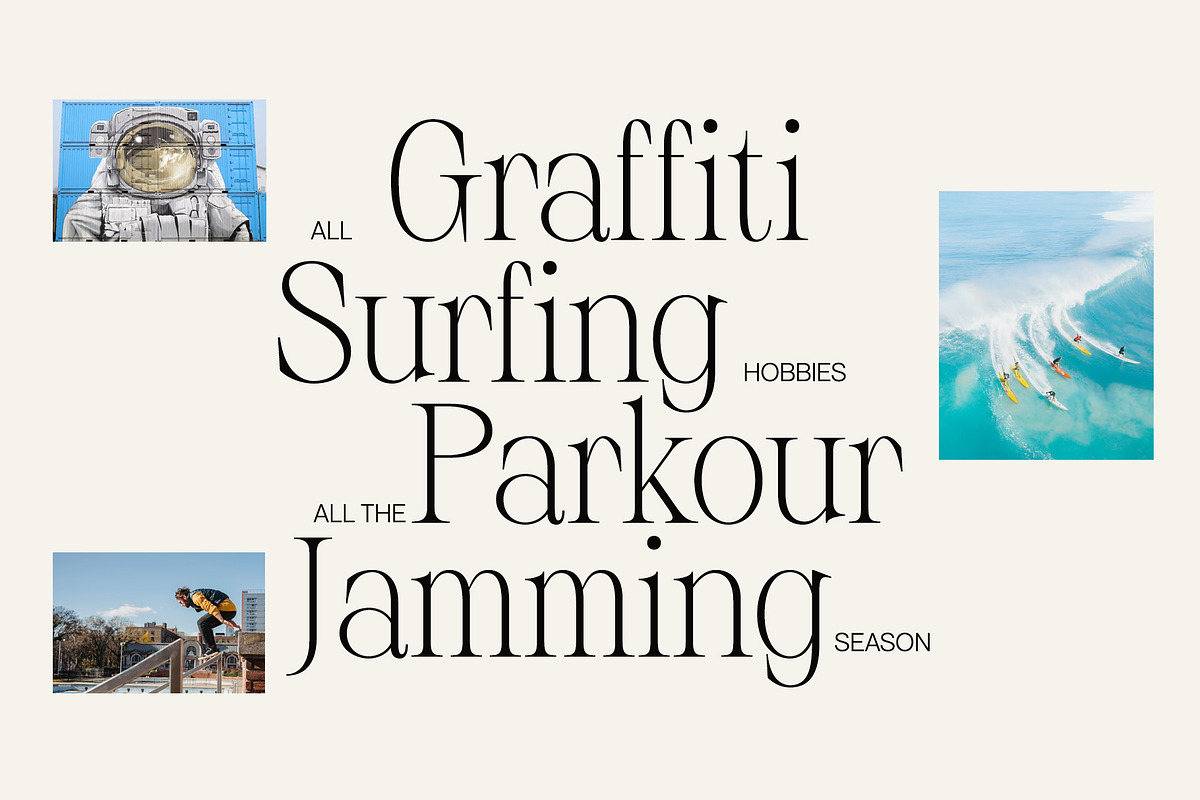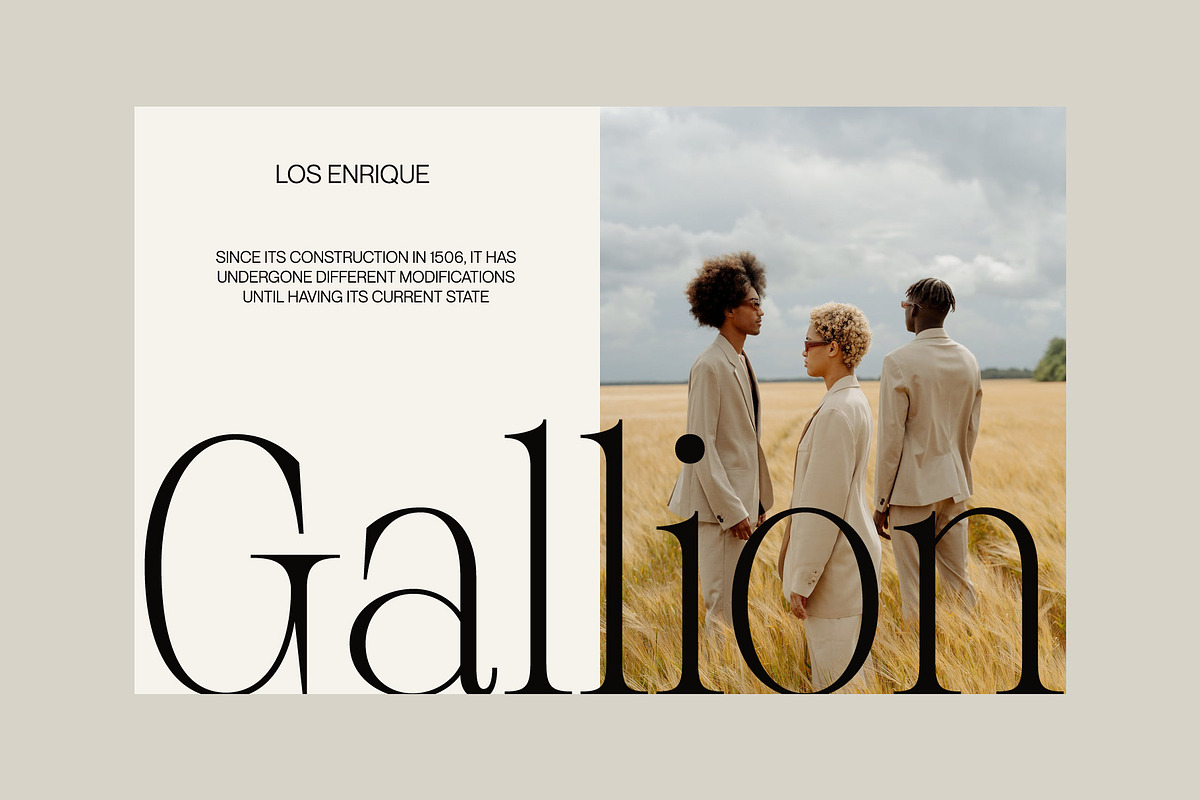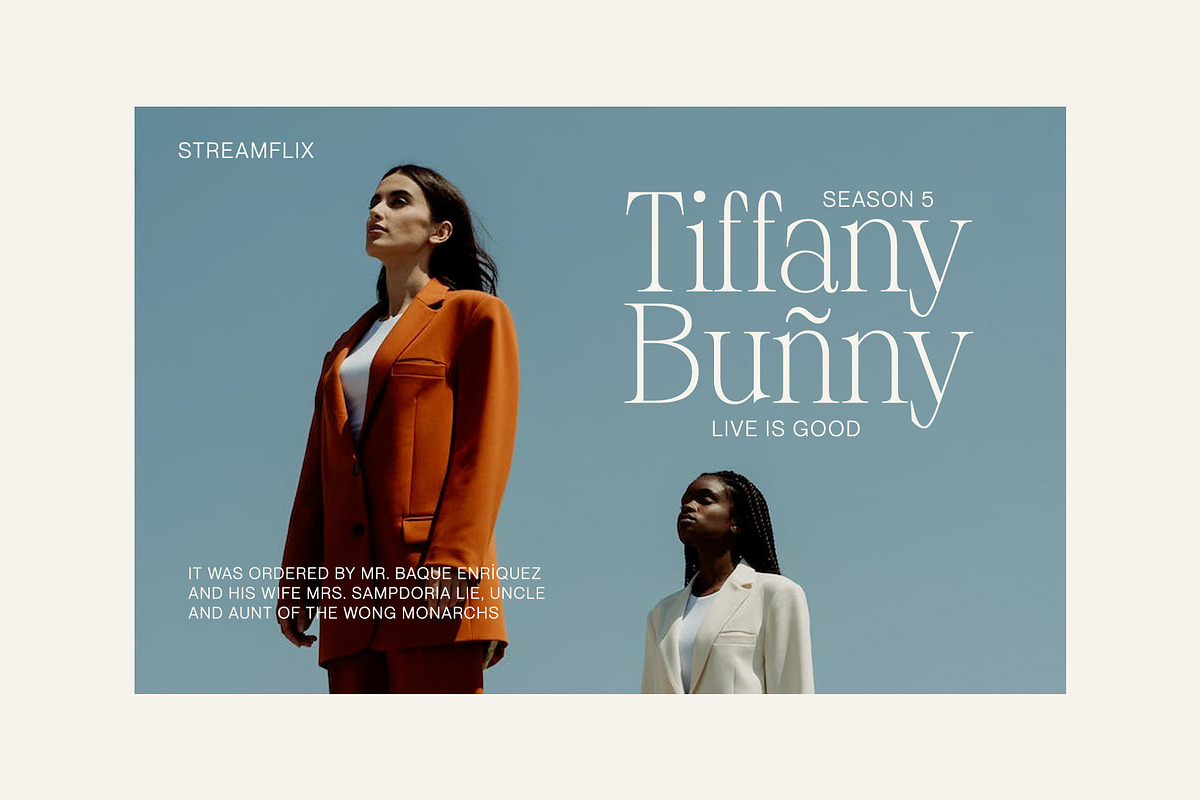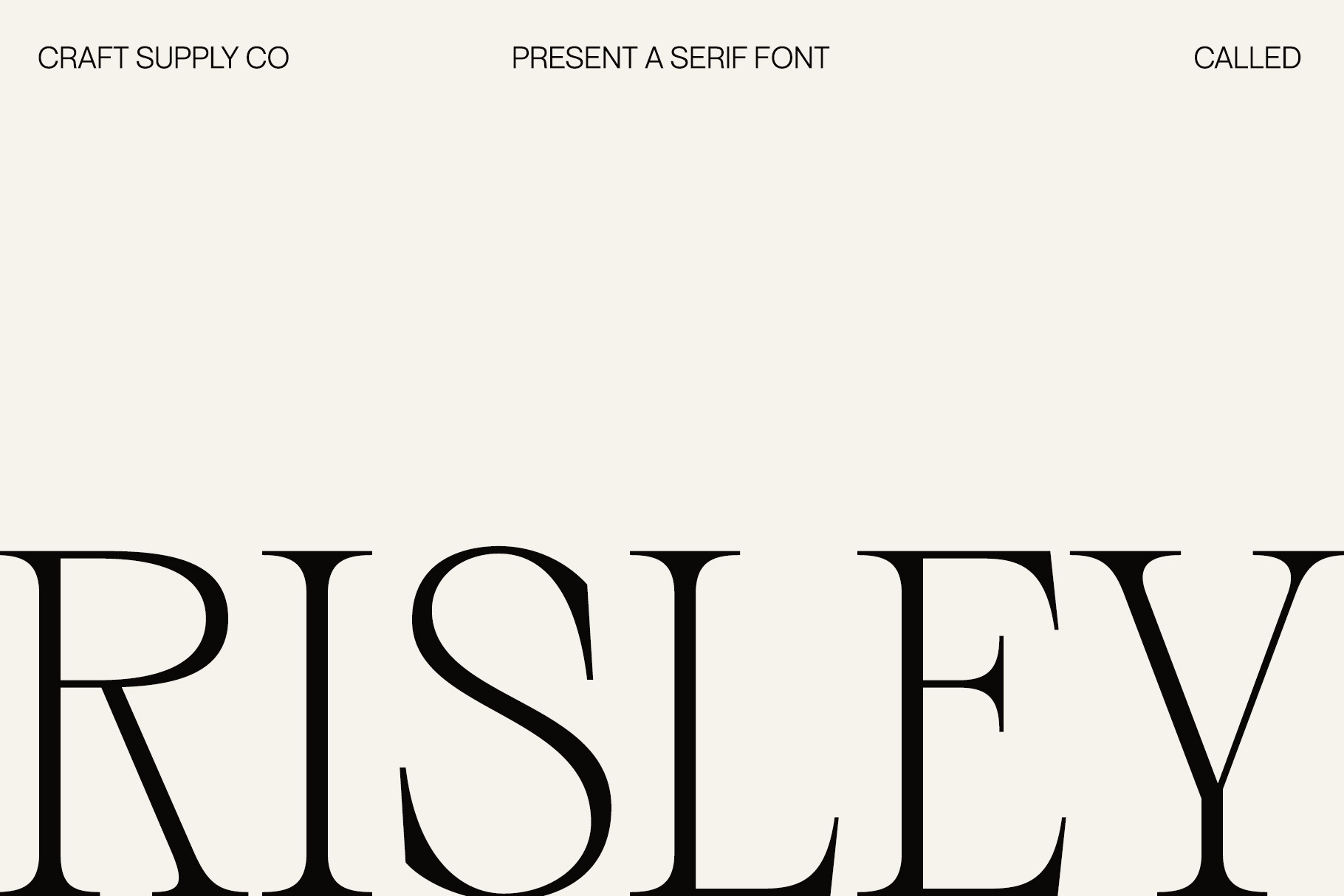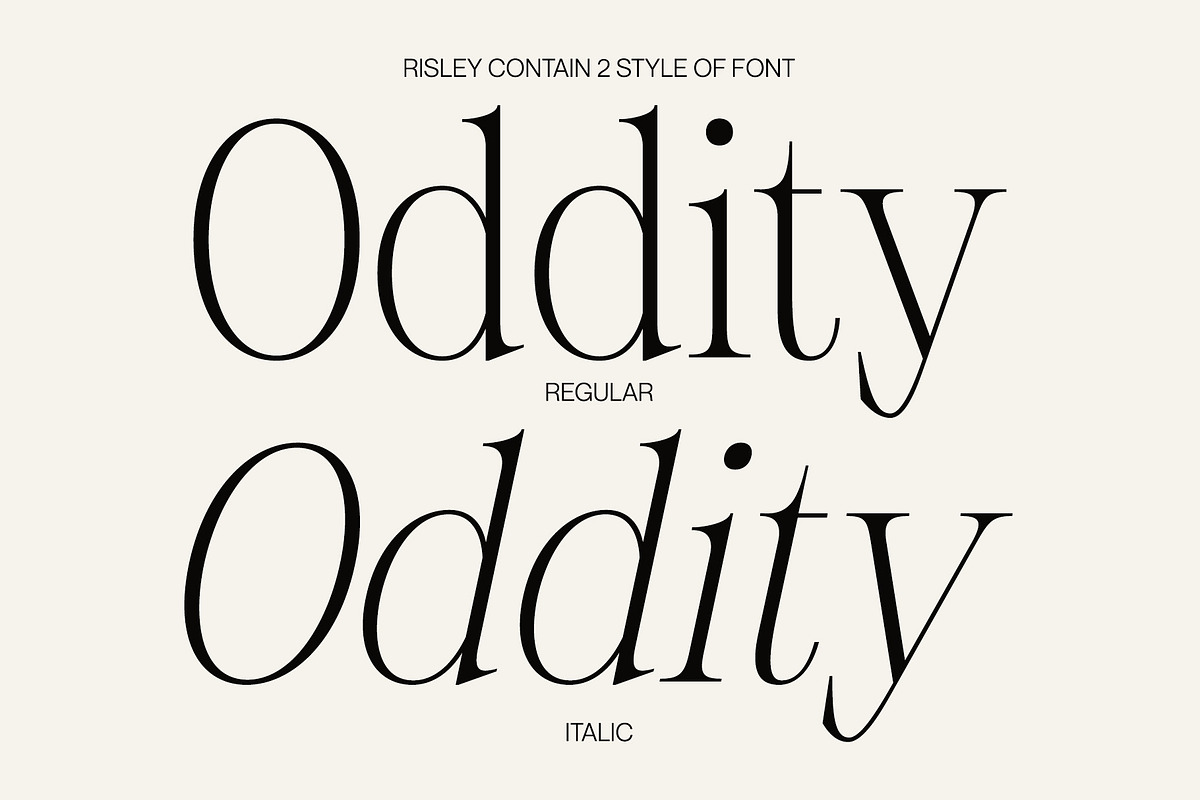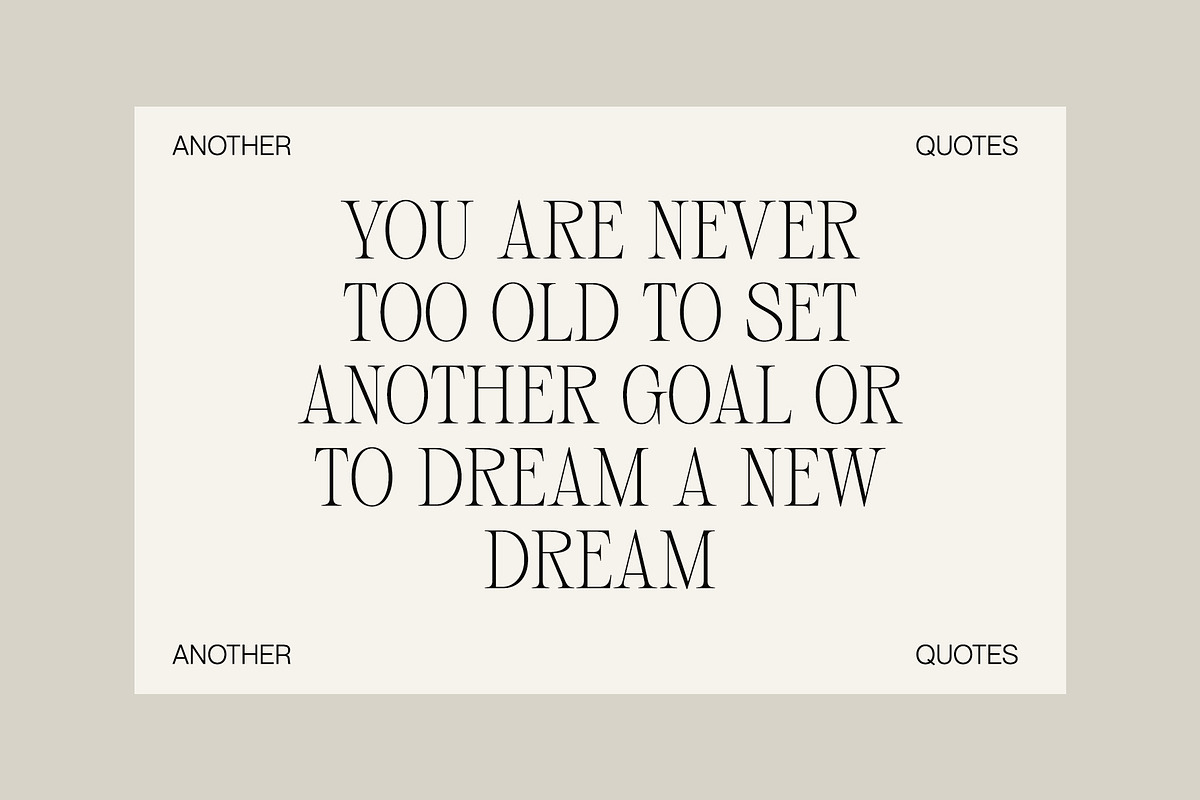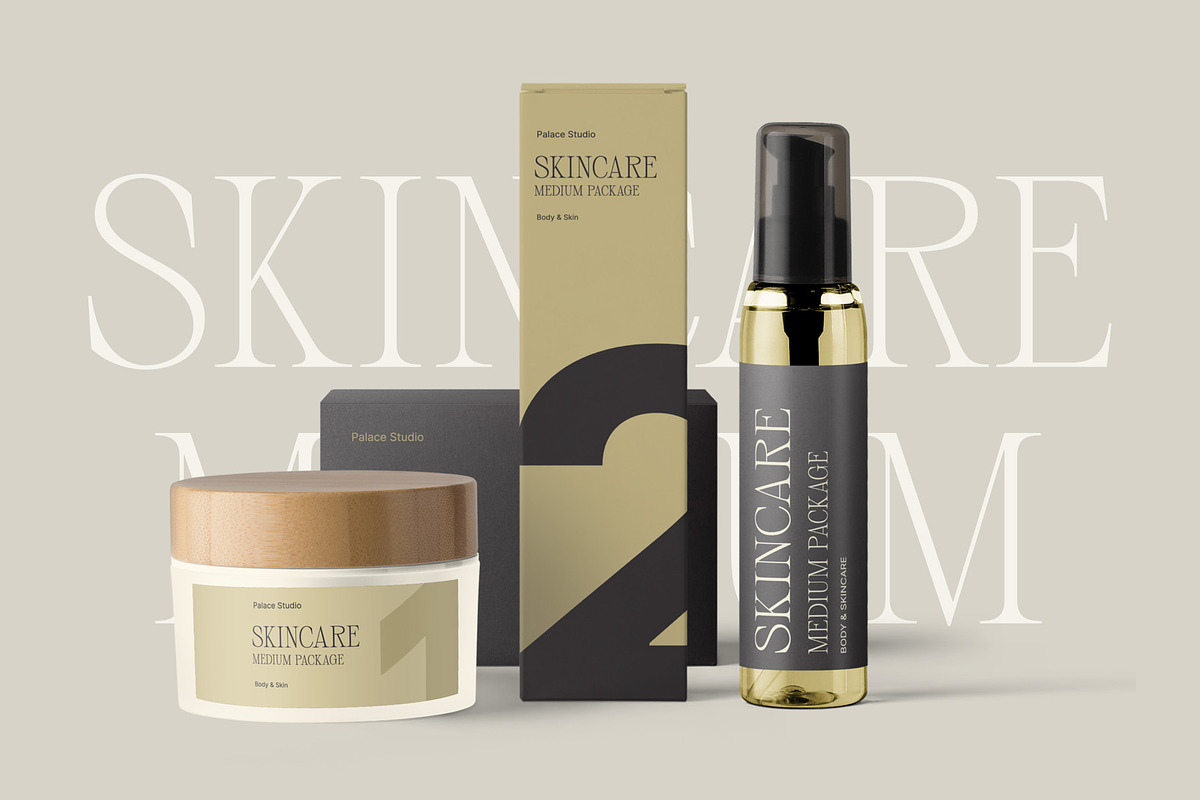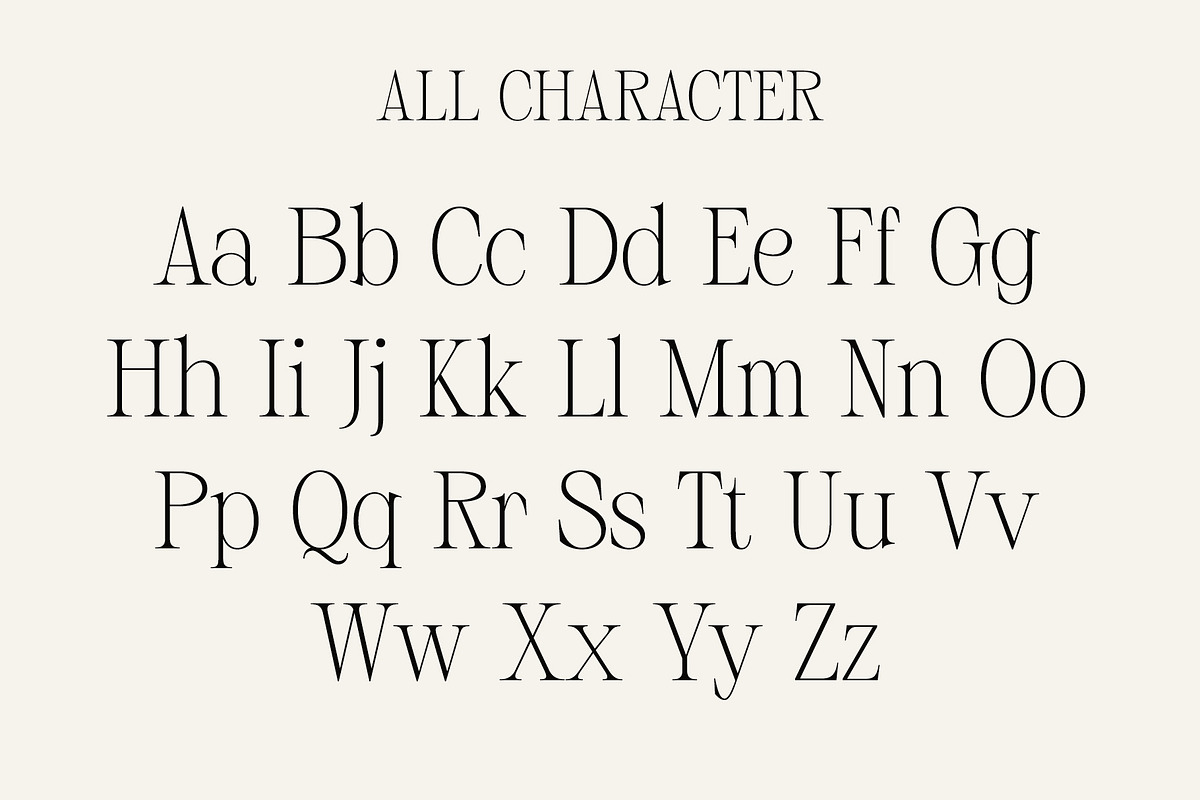
Risley - Classic Editorial Font
Risley: A timeless classic in editorial typography, Risley embodies the essence of a bygone era with its retro 90s serif font. Perfectly suited for editorial projects, Risley infuses a touch of nostalgia and sophistication into your designs.
This typeface is ideal for greeting card, packaging, brand identity, poster, or any purpose to make your design project look eye catching and trendy. Feel free to play with this typeface!
- Risley Regular
- Risley Italic